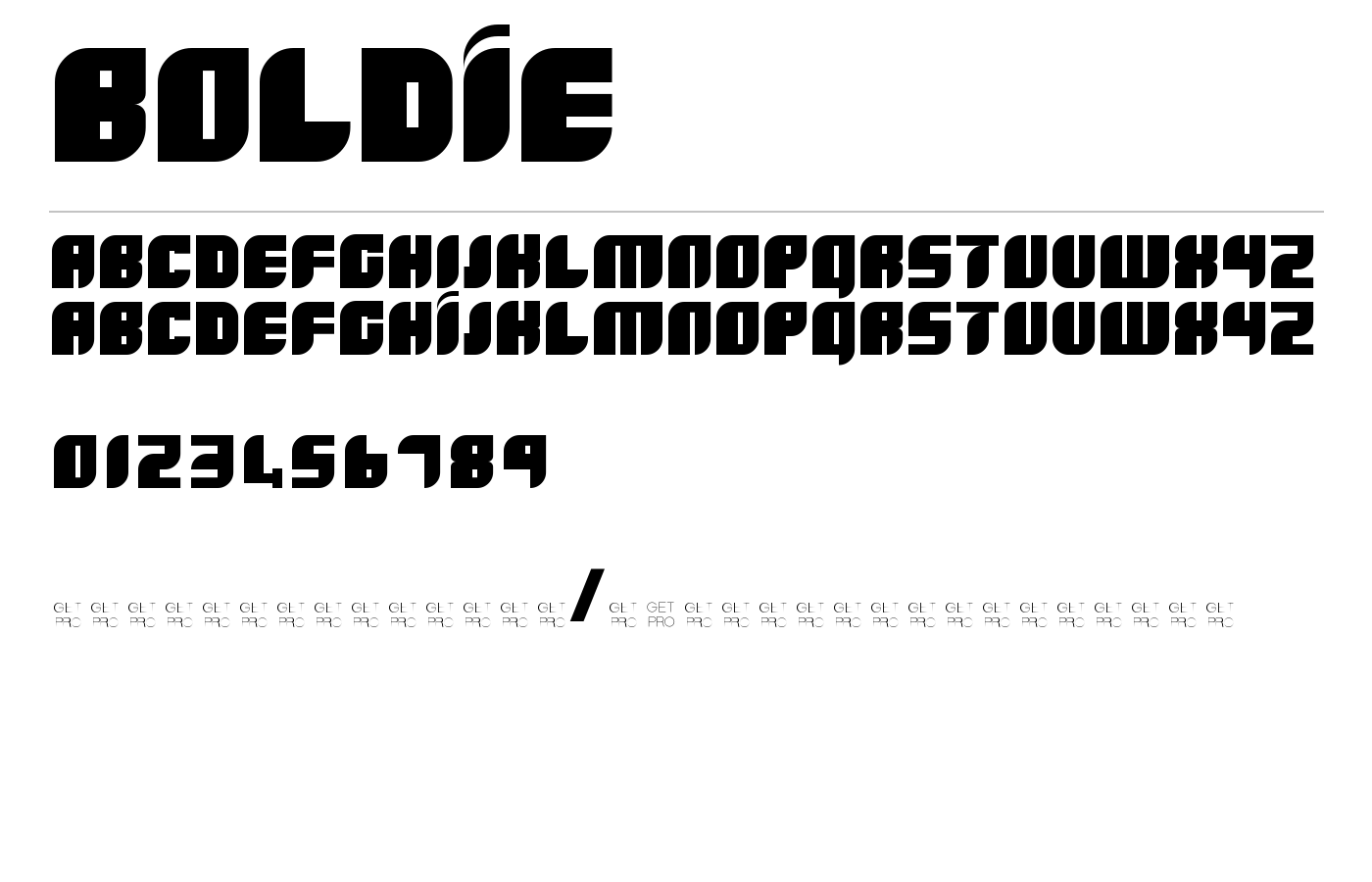
Boldie is a bold, condensed, sans serif font with a strong geometric feel and high stroke contrast. Its blocky letterforms and unique cut-out details give it a powerful, modern look ideal for striking headlines, logos, and display uses. This font suits brands that want to convey confidence and contemporary style with a touch of uniqueness.
Boldie Font
About Boldie Font
| Font family | Boldie Font |
| Designer | Mehmet Abaci |